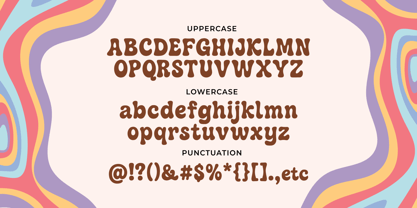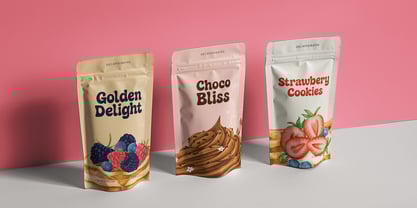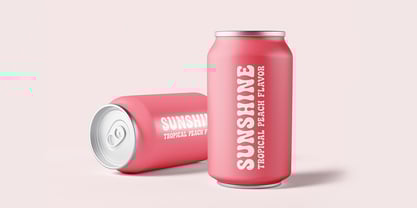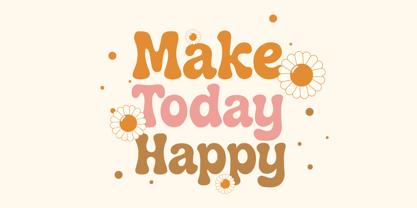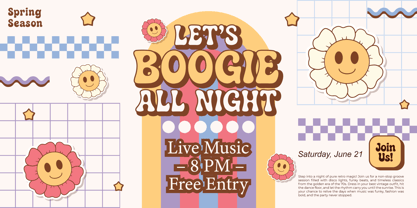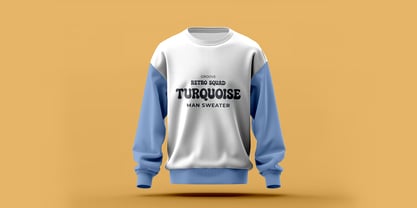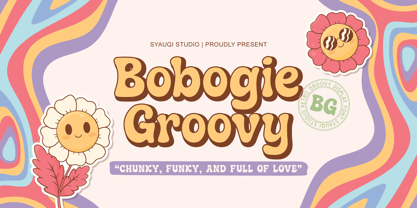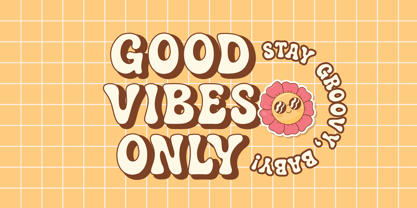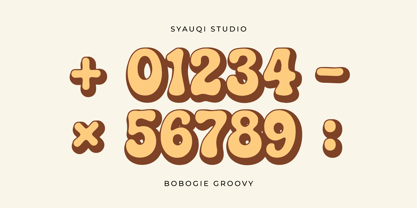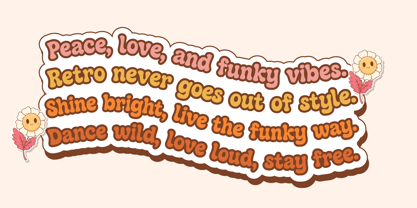
Bobogie Groovy
Bobogie Groovy – Retro Groovy Display Font
Step into a world of vibrant colors, swirling shapes, and funky vibes with Bobogie Groovy – a bold retro display font inspired by the golden age of the ’60s and ’70s. This typeface dances with personality, blending chunky curves, playful letterforms, and a joyful rhythm that will make any design sing.
Whether you’re creating a psychedelic poster, a vintage-inspired logo, or packaging that needs a pop of nostalgia, Bobogie Groovy delivers that perfect mix of flower power and disco fever. Its smooth curves and thick strokes make it stand out in headlines, merch, social media graphics, or any project that deserves a dose of happy energy.
From festival branding to album covers, Bobogie Groovy is your ticket to the era of bell-bottoms, peace signs, and endless grooves.
Features:
- Uppercase & Lowercase
- Number & Punctuation
- Multilingual Support